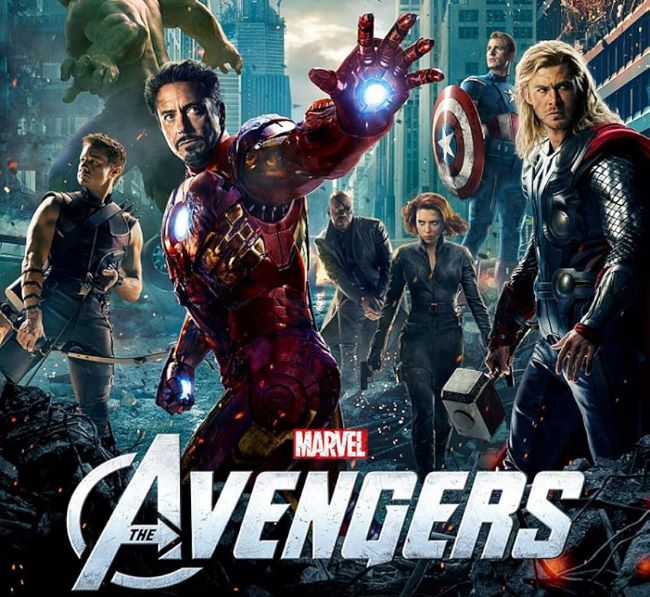
The Avengers Font unleashes superhero energy through powerful, angular letterforms that command immediate attention. This typography perfectly embodies the Marvel Cinematic Universe’s explosive action and team unity, providing designers with an iconic tool for creating dynamic, larger-than-life visuals that resonate with fans globally.
The Avengers Font
The film’s title lettering features geometric precision and condensed structure, communicating strength and solidarity among Earth’s mightiest heroes. Its bold architecture makes every headline feel monumental and action-packed.
While there is no official studio-released typeface, one of the closest matches is Avengeance Heroic Avenger, a fan-made font that replicates the iconic movie logo style. For a free alternative, Bebas Neue offers a similarly bold and clean look suitable for superhero designs.
The Avengers Font excels in comic conventions, gaming graphics, sports branding, and youth-oriented campaigns. Its versatile power proves that typography can be as memorable as the characters it represents, inspiring countless creative projects across multiple platforms.